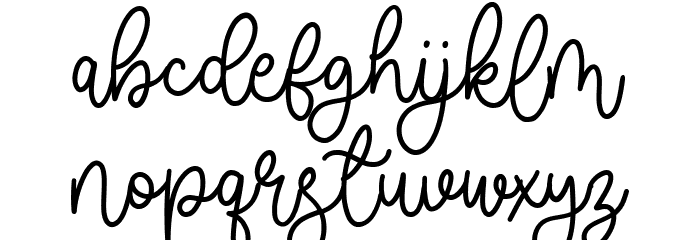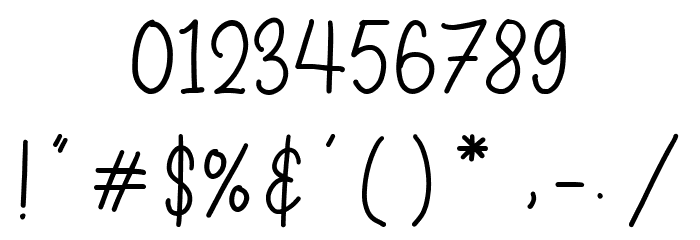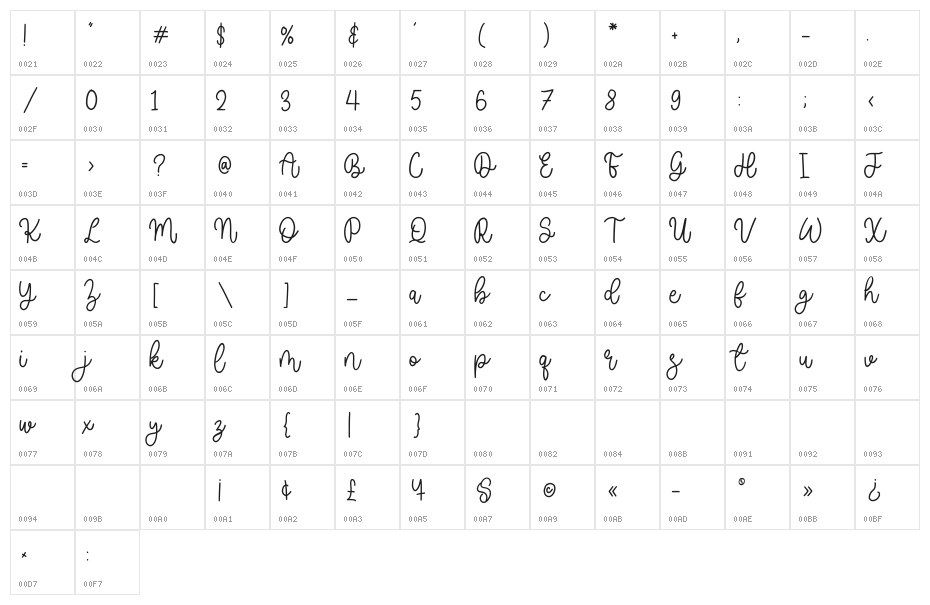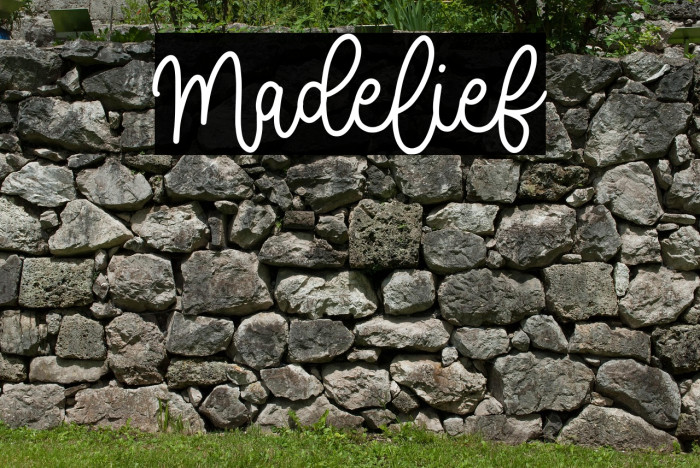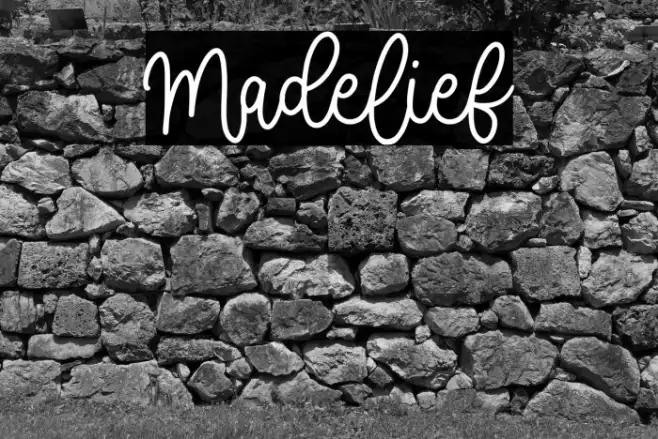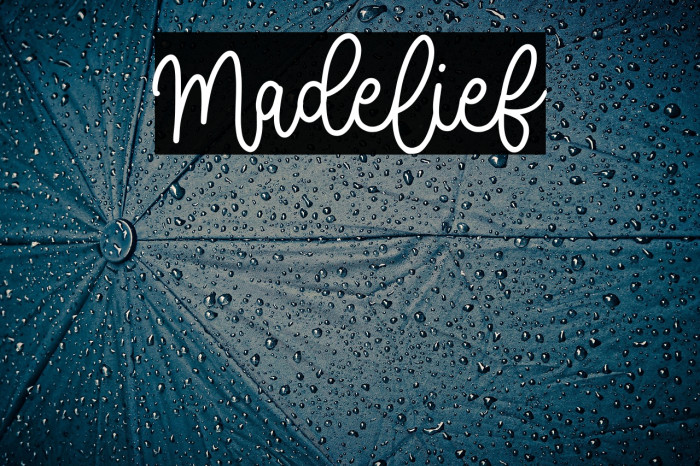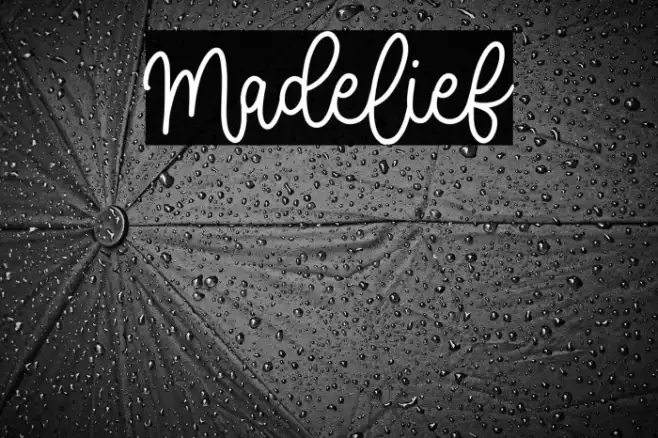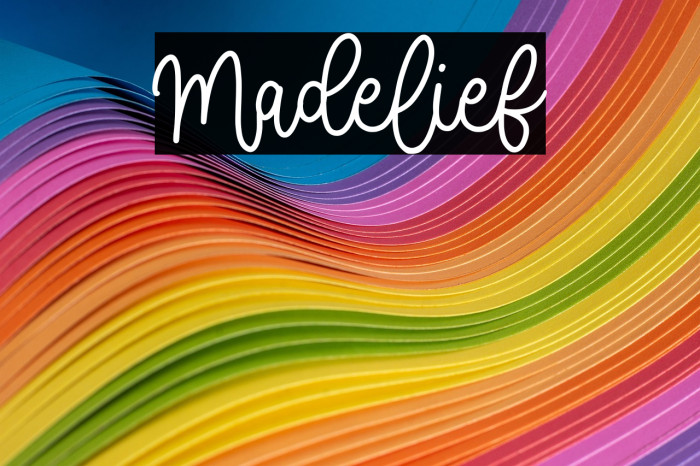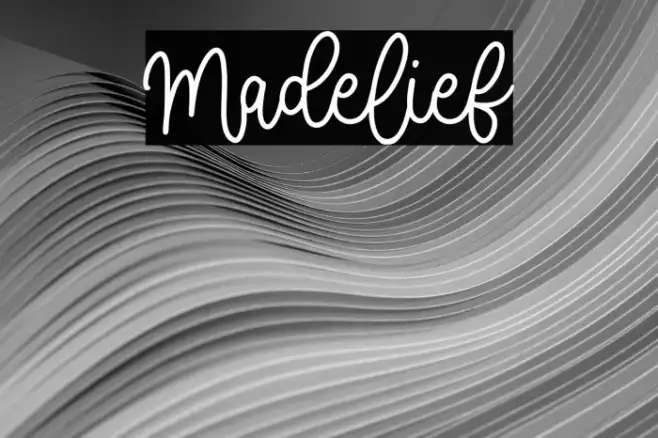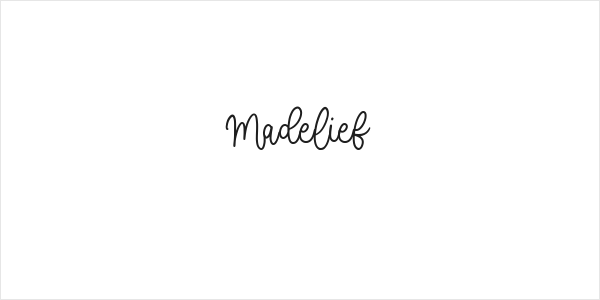
Madelief Font
This font features a playful and whimsical script style with a handwritten appearance. The letters are connected, giving it a fluid and continuous flow. The strokes are smooth and rounded, with a consistent thickness throughout, which adds to its legibility. The uppercase letters are slightly larger and more ornate, while the lowercase letters maintain a simpler, yet elegant form. The numerals and special characters are designed to match the overall style, ensuring a cohesive look. This font exudes a friendly and approachable vibe, making it suitable for a variety of creative projects.
A playful, handwritten script font with smooth, rounded strokes.
- Proposed Projects: Ideal for invitations, greeting cards, branding, and social media graphics.
- Use Case: Logos, Invitations, Greeting Cards